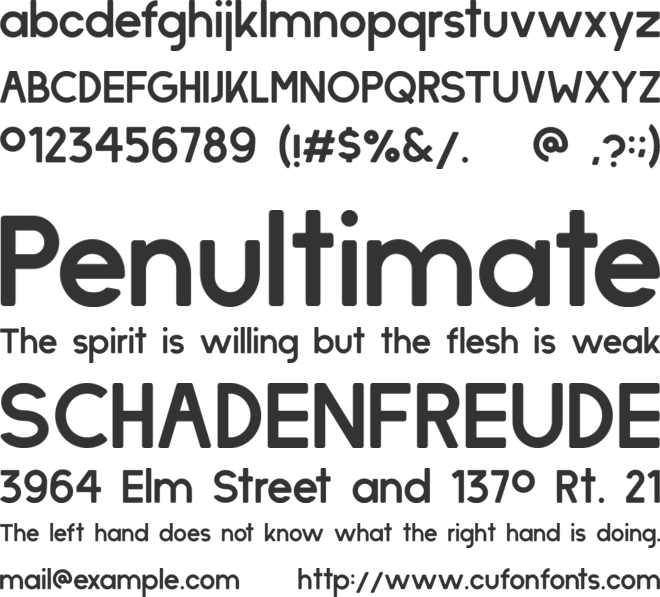
Ok Font Family
Noe Araujo
Ok Regular Font is a sans-serif typeface created to be used for bold titles and modern designs. Learn more: https://uifreebies.net/font/ok-regular-font-free